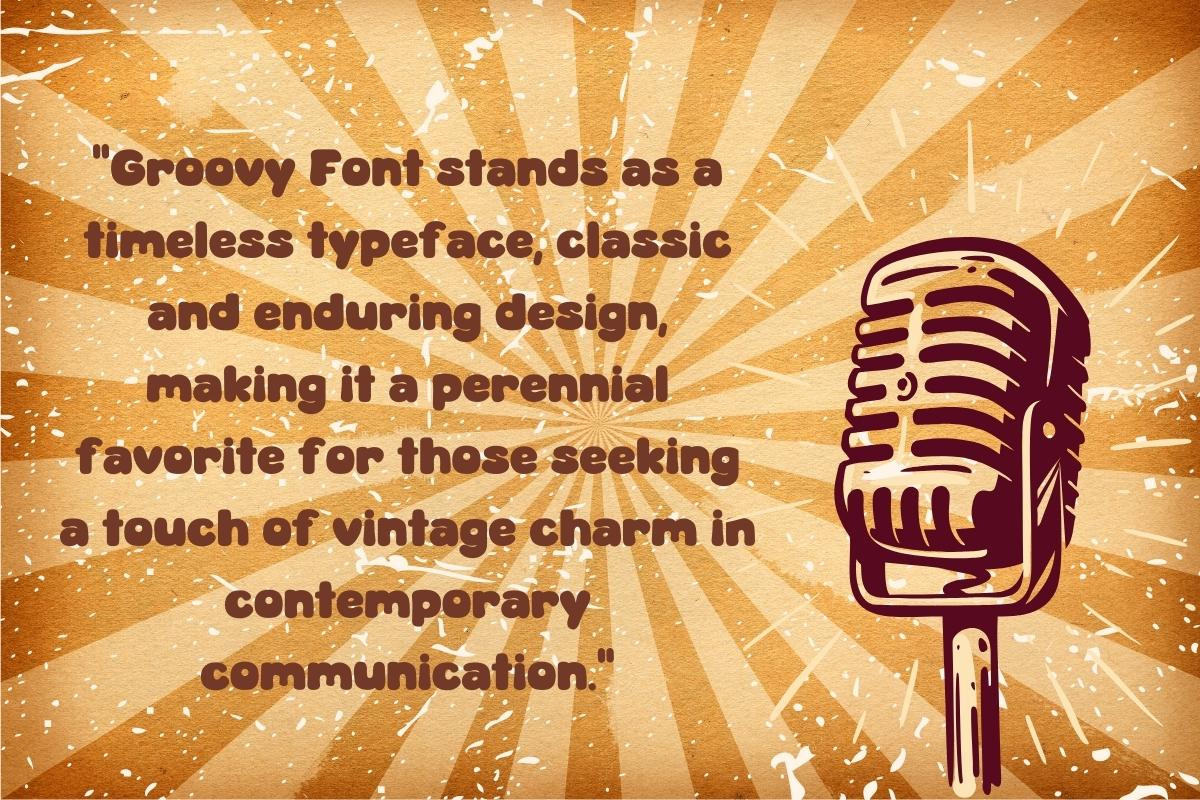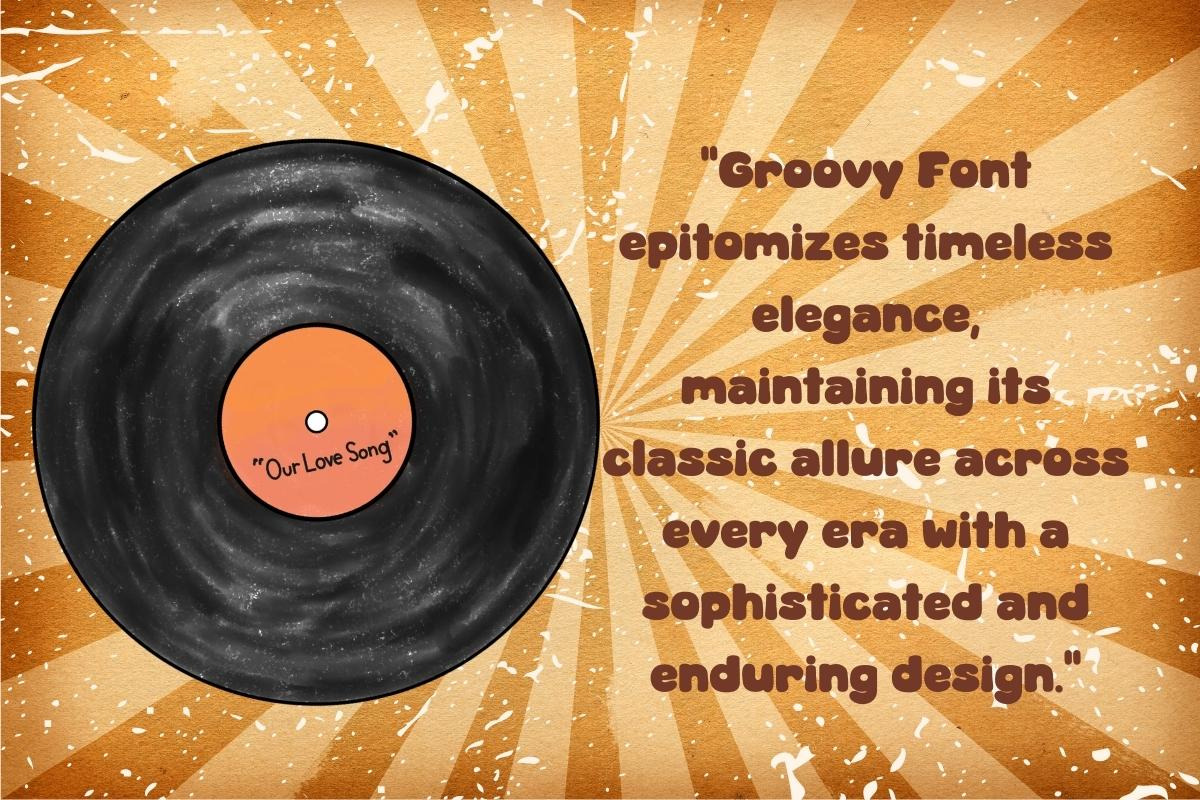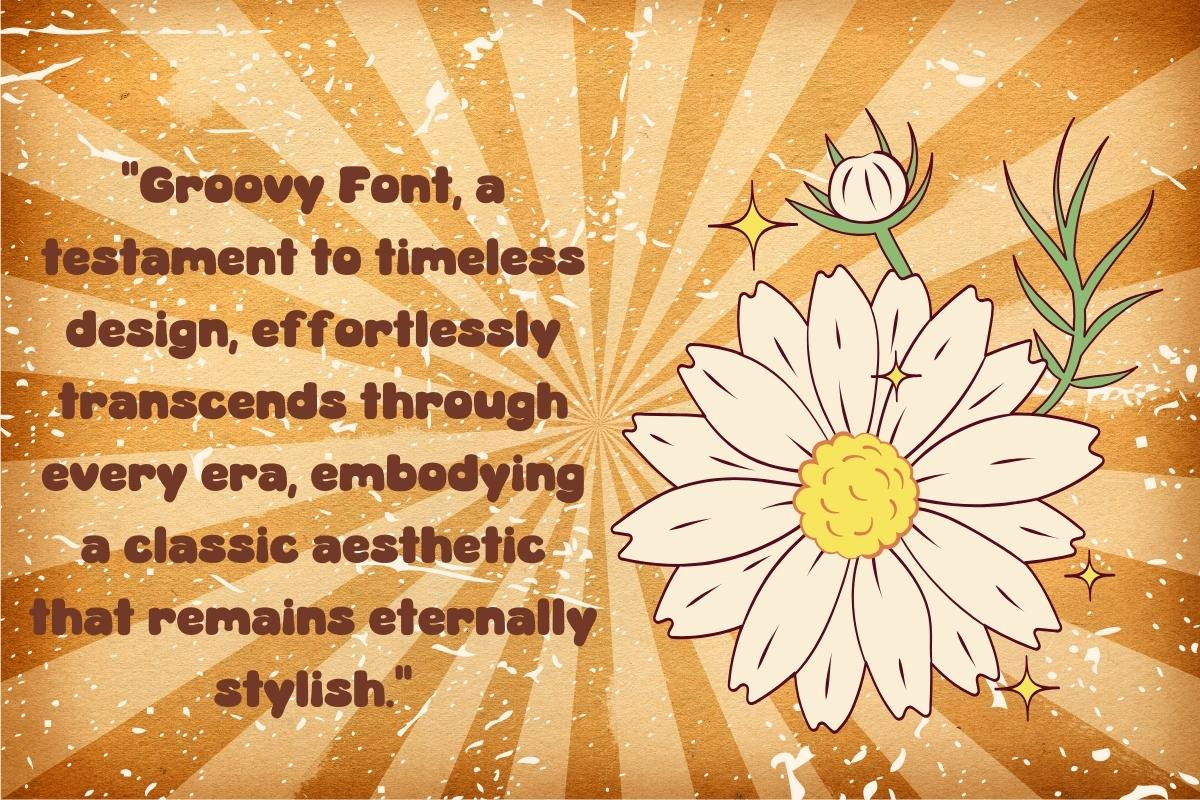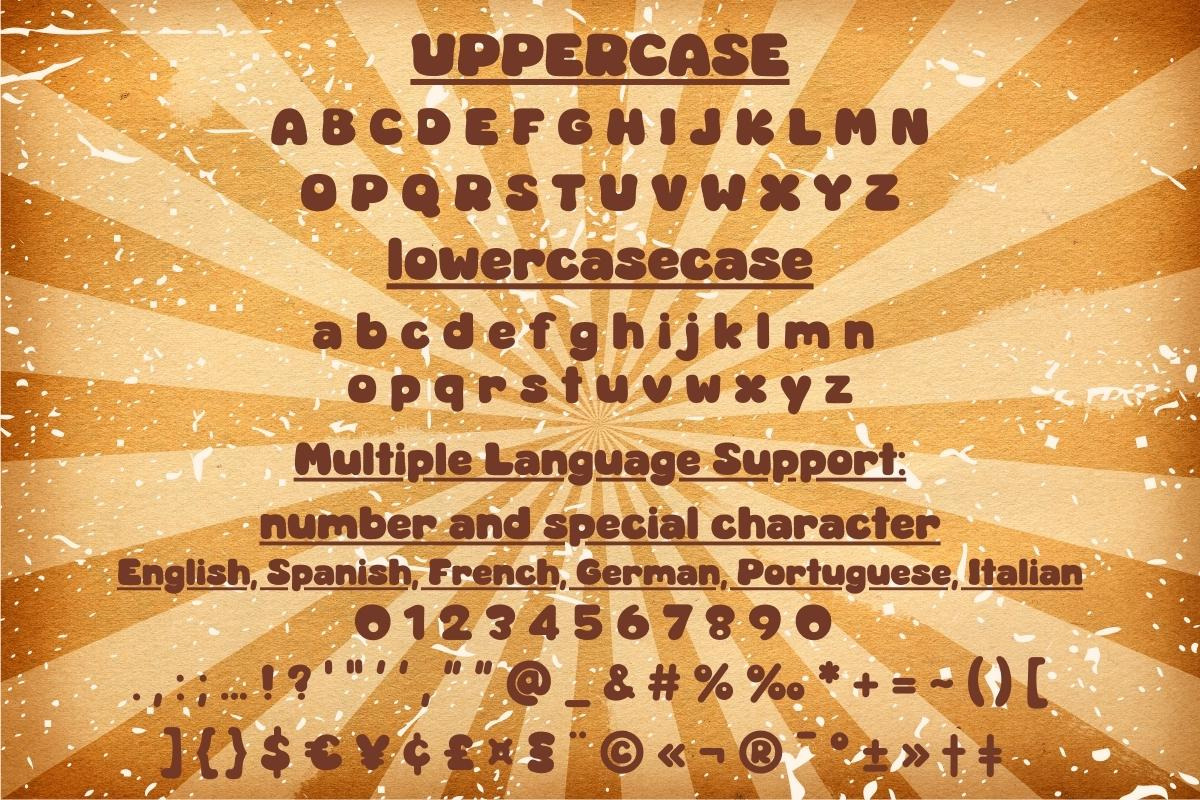
In my Groovy Era - Handwritting
Welcome to the mesmerizing world of fonts, where every curve and contour tells a unique story. Allow us to introduce you to "In My Groovy Era," a font that transcends time, inviting you to rediscover the enchanting vibes of a bygone era. Here are some captivating descriptions to entice you into the realm of this beautiful retro font